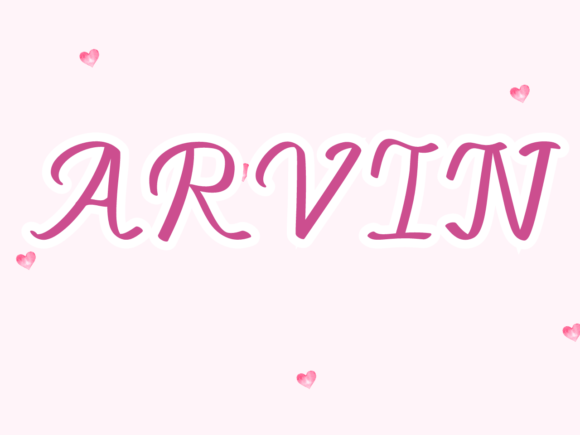
Journey into the world of Arvin Font, a captivating calligraphy typeface that weaves a tale of romance and sweetness. Its characters dance gracefully along the baseline, adding a touch of luxury and elegance to every design project. Designed by the talented Pukka De, Arvin Font is a symphony of creativity, bringing your visions to life with its enchanting charm.
Arvin Font belongs to the script font family, renowned for its expressive and timeless appeal. Its strokes flow seamlessly, resembling the graceful movements of a dancer, adding a touch of artistry to your designs. With its PUA encoding, unlocking the full potential of Arvin Font is a breeze. Access a treasure trove of glyphs and ligatures with ease, unleashing a world of endless creative possibilities.
Picture your designs adorned with Arvin Font's enchanting characters. Whether you're crafting logos, invitations, branding materials, or social media posts, Arvin Font adds a touch of magic to each project. Its versatility extends to a range of applications, including web design, print projects, and digital art. Discover the joy of creating designs that captivate and inspire, leaving a lasting impression on your audience.
Arvin Font is more than just a font; it's an experience that ignites your creativity and sets your imagination free. Dive into a world of endless possibilities and let Arvin Font guide you on a journey of artistic expression. Embrace the beauty of calligraphy and let your designs bloom with elegance and charm. Arvin Font awaits you, ready to transform your creative visions into breathtaking realities.